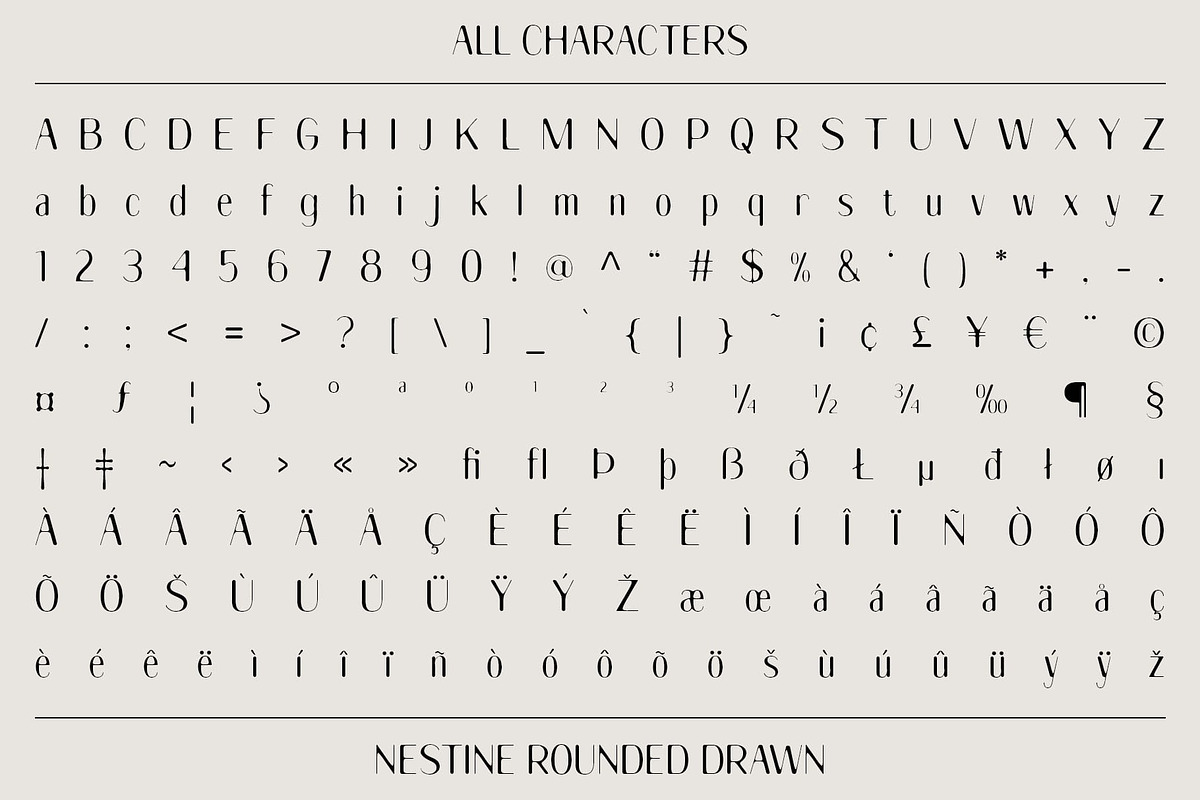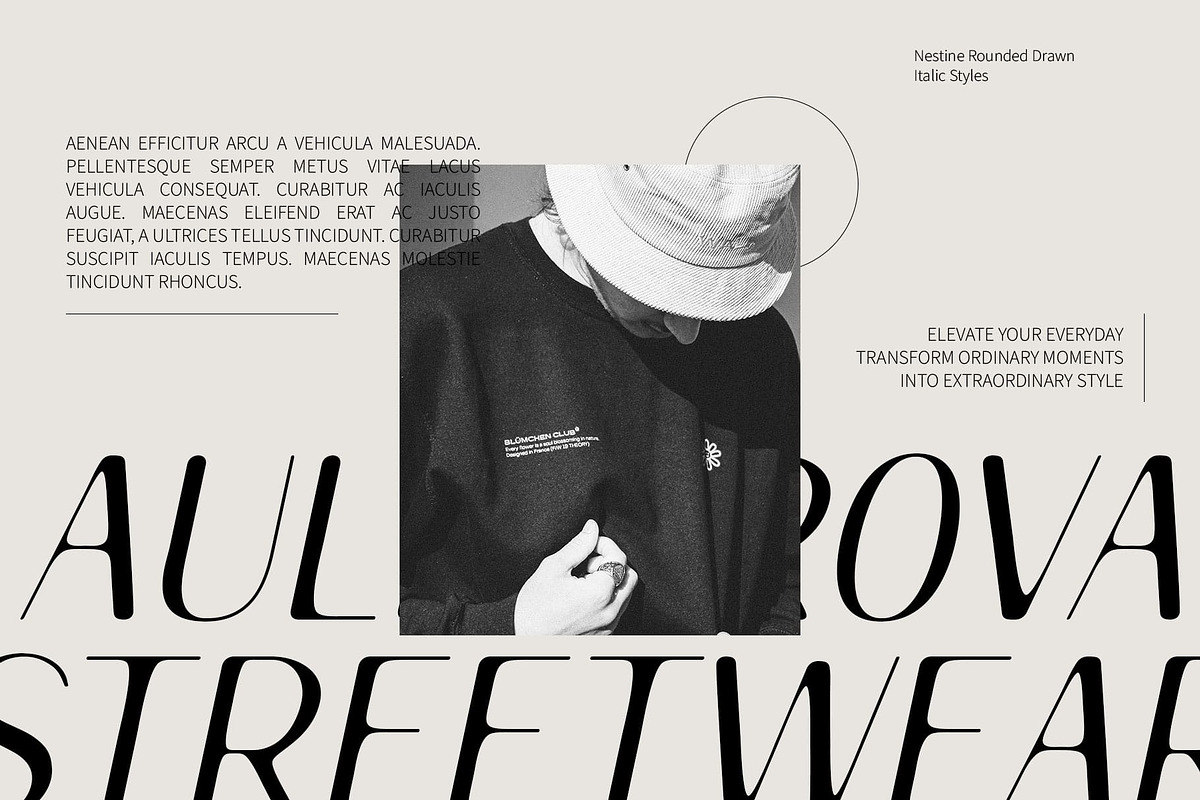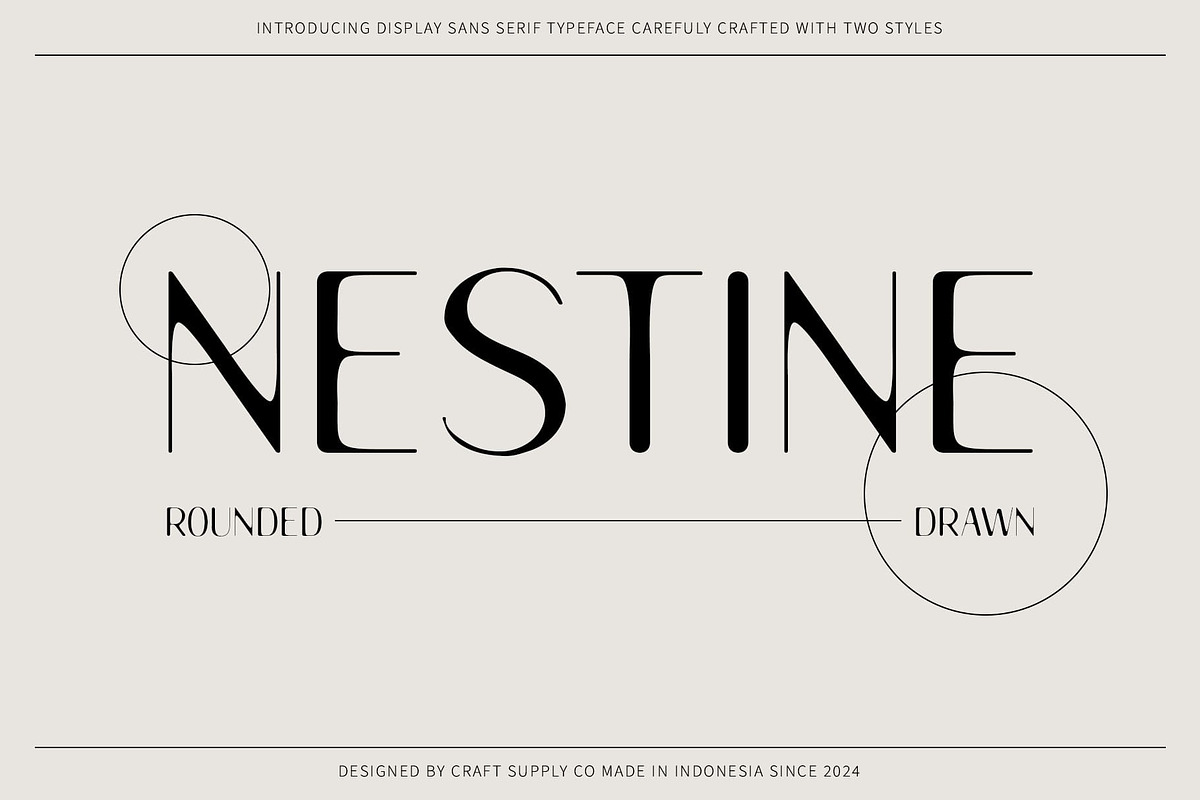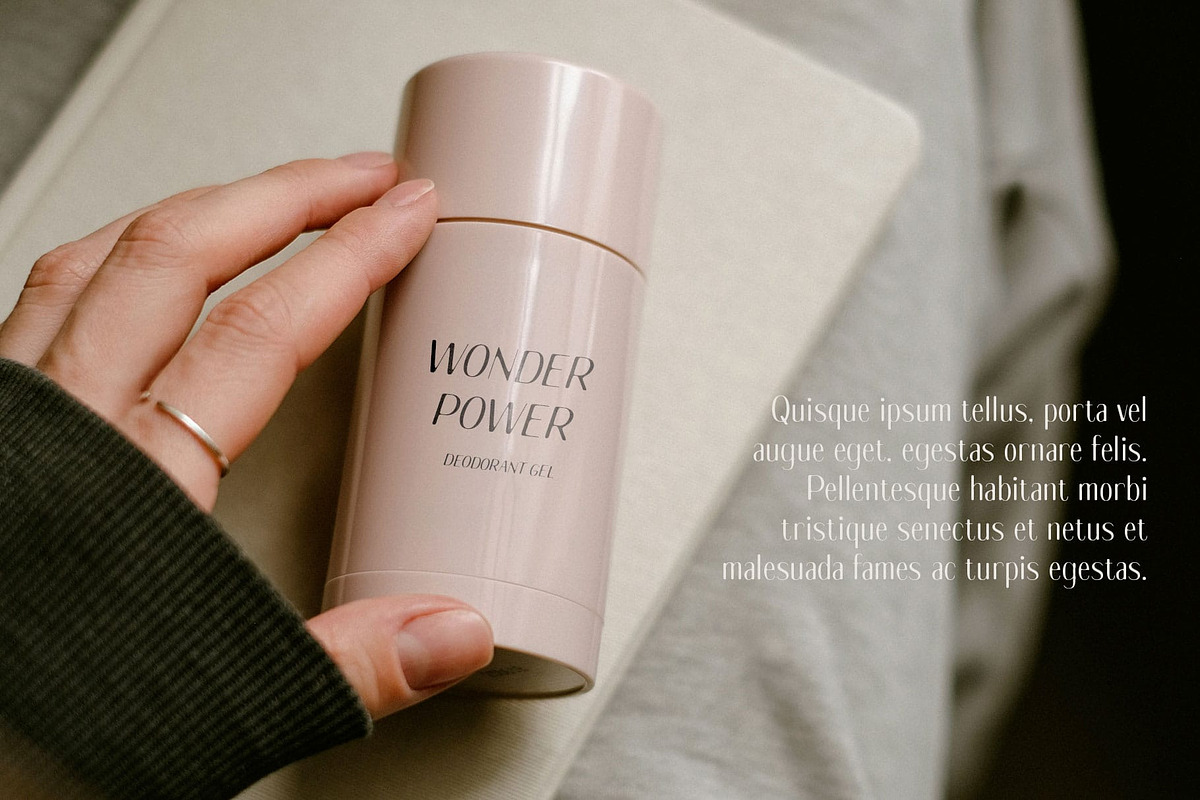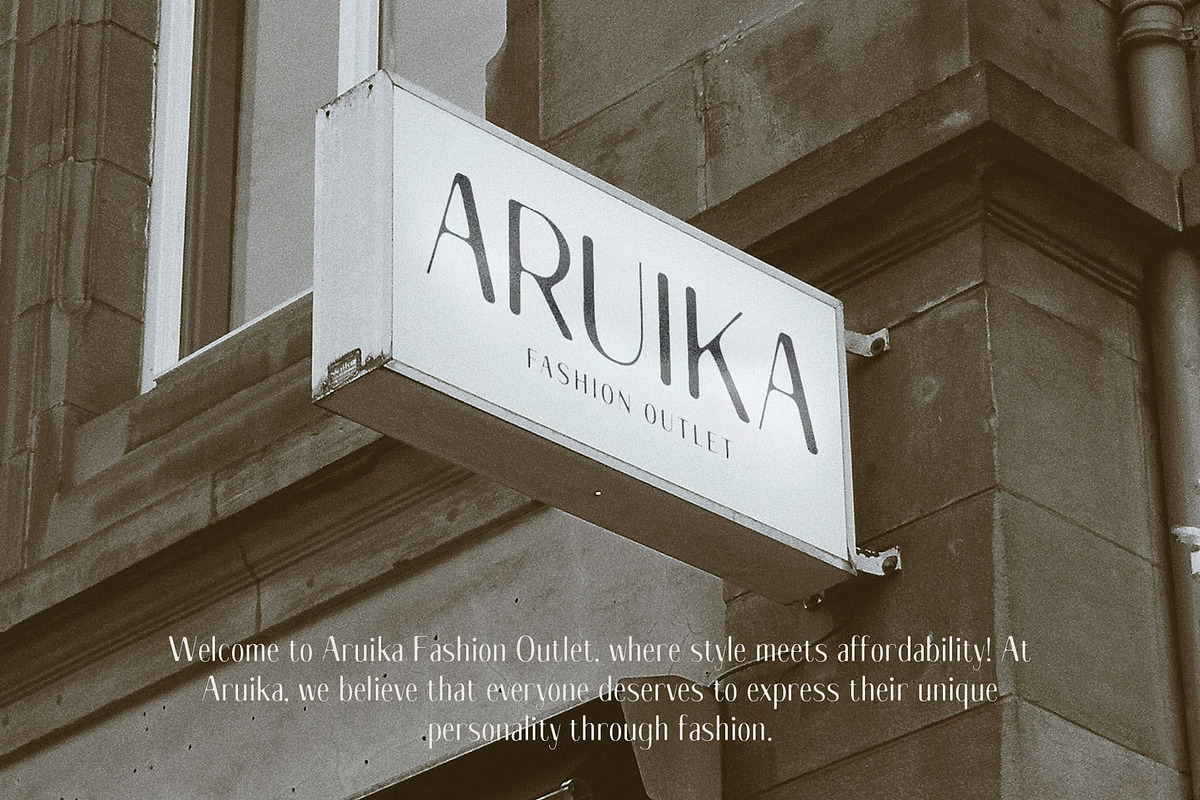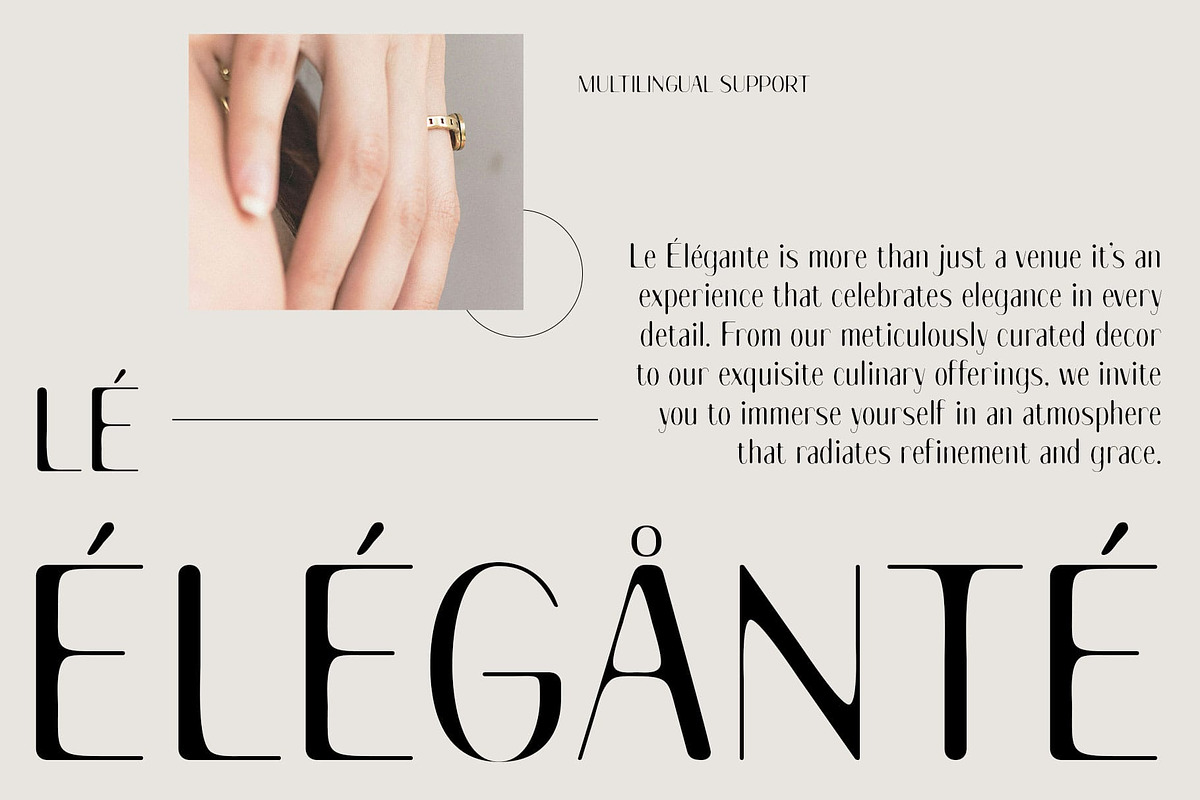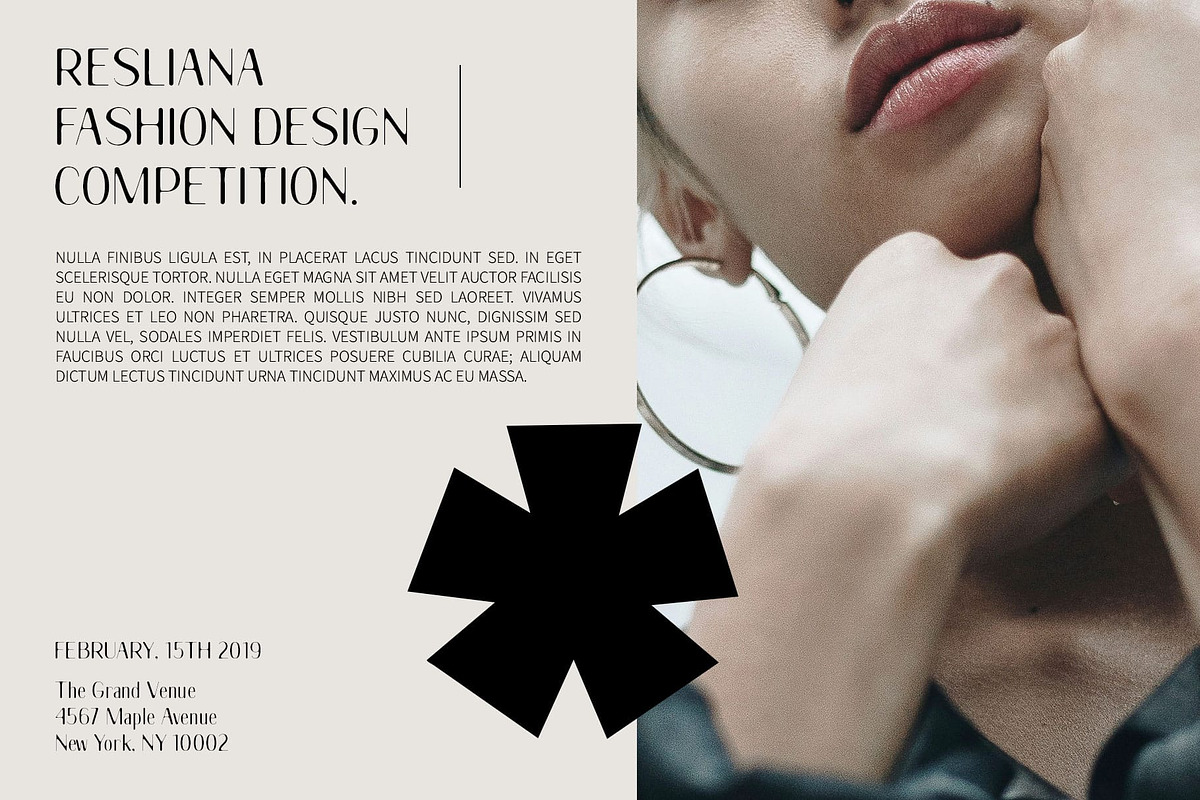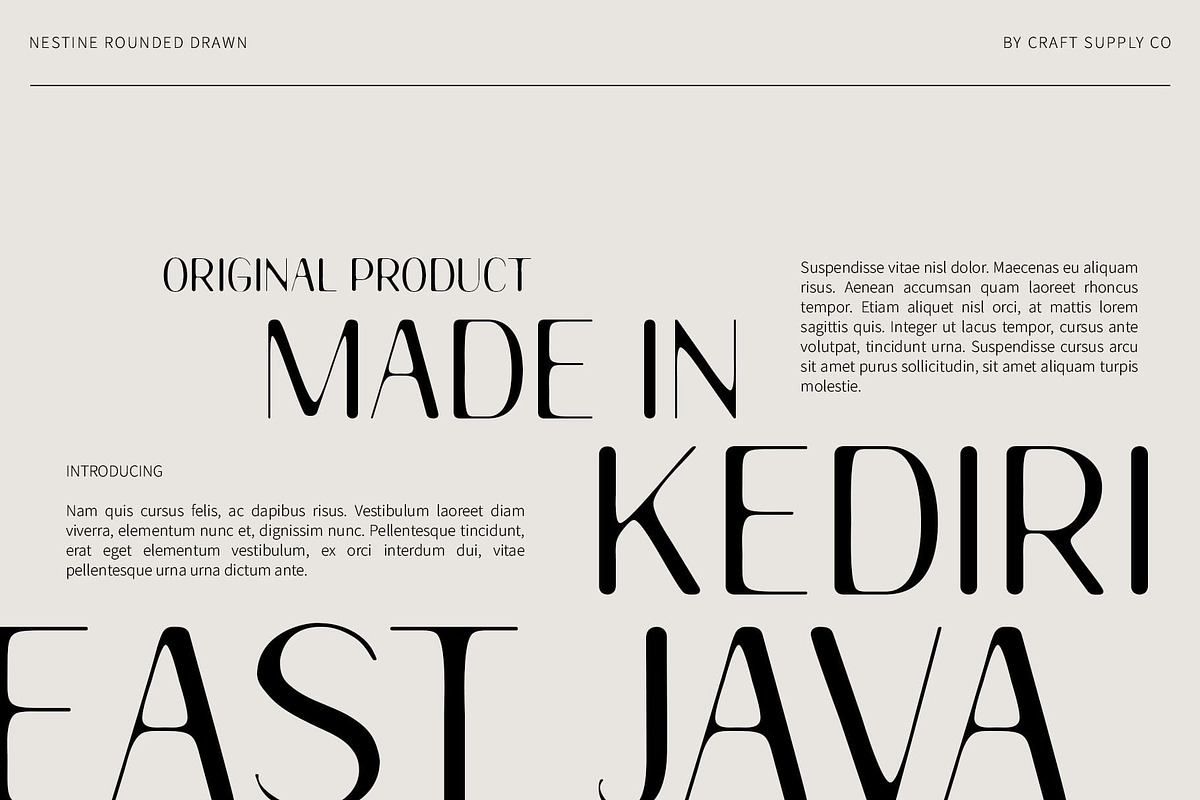
Nestine Rounded Drawn
Nestine Rounded Drawn – Elegant Sans Serif with Artistic Flair
Sleek and Minimalist Design Nestine is a modern sans serif font characterized by its sleek, minimalist shapes and rounded corners. This thoughtful design choice creates an elegant and contemporary feel, making it a perfect fit for a variety of design applications. Its clean lines enhance readability while conveying a sense of sophistication.
Artistic Touch with a Drawn Effect The unique drawn effect adds a subtle artistic nuance to Nestine, giving it a handcrafted quality that elevates any project. This feature allows the font to stand out while still maintaining an air of professionalism, striking the perfect balance between creativity and elegance.
Versatile for Creative Projects Ideal for branding, invitations, and editorial design, this rounded drawn font excels in projects that seek to communicate both style and innovation. Its adaptable nature makes it suitable for a wide range of creative endeavors, from luxury branding to engaging marketing materials.
Balance of Elegance and Creativity This rounded drawn font captures the essence of modern design while incorporating a personal touch. This font is a fantastic choice for designers aiming to infuse their work with elegance and creativity, ensuring that every project leaves a lasting impression.